Winsor & Newton
For Winsor & Newton, who celebrated their 175th anniversary in 2007, we were asked by design consultancy Carl Nas Associates to subtly update and refine the manufacturer’s iconic maker’s mark: the Winged Lion, first introduced as the company’s brand in 1881.
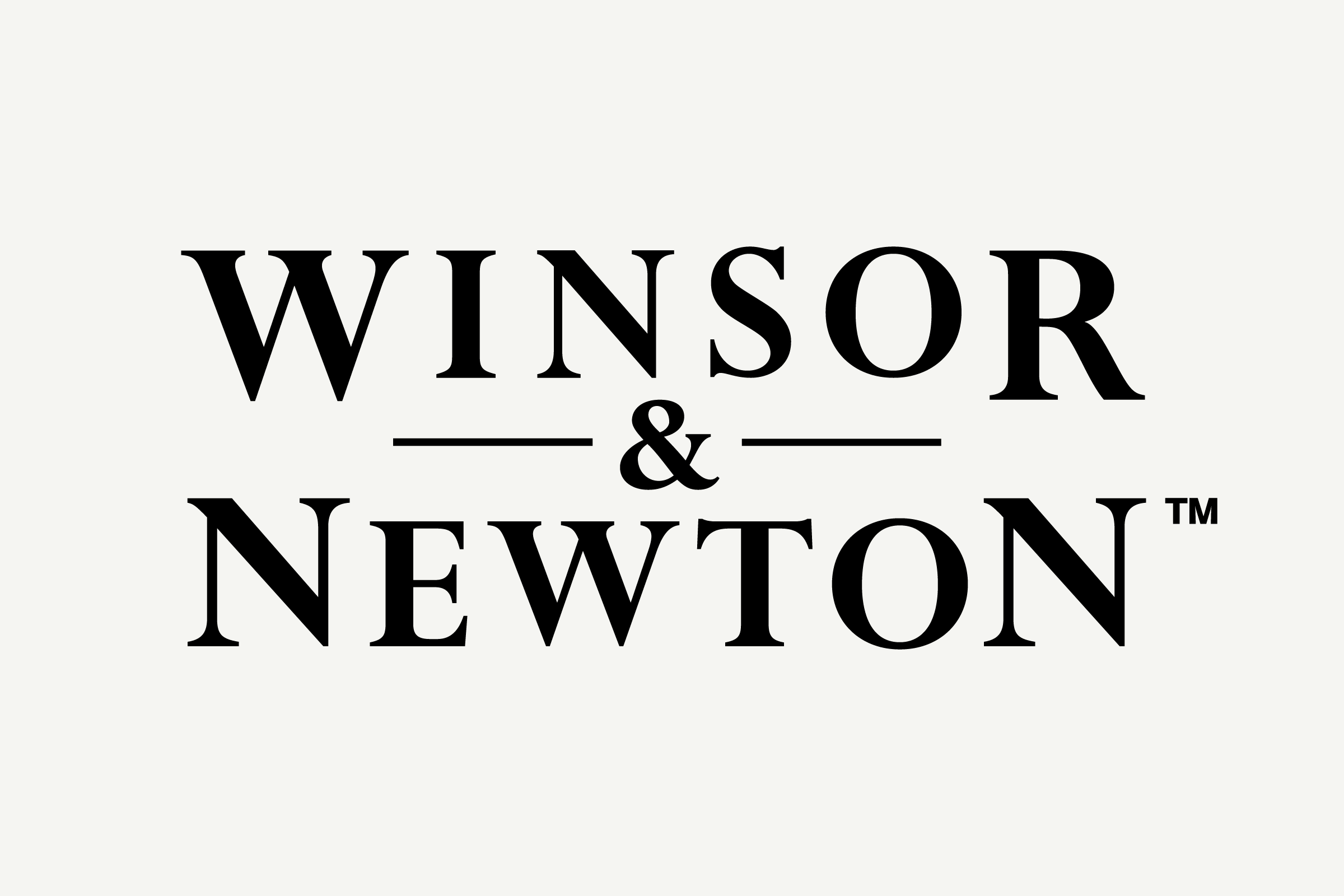
The mark, which is consistently reproduced across the company’s fine art tools and products — from paint tubes to solvents to brushes and everything in between — had degraded over time due to digital wear and tear (often caused by transferral across media) and also suffered from being consistently used as a white (or light) mark upon a black (or dark) ground, despite initially being drawn for use as a black (dark) mark on a white (light) ground.
In response, our redevelopment of the Winsor & Newton trademark was three-fold. The first undertaking was an overall optimisation of the historic dark-on-light logo, which involved adjusting line weights, simplifying shadowing and detailing, and re-shaping the type. The second phase involved a subtle redrawing and lightening of this new mark for reversed-out (light on dark) settings, in which a standard inversion often causes a boldening halo effect that must be corrected for.
After optically synchronising the two versions of the primary mark and its accompanying type, the third stage of the logo’s improvement and expansion demanded a commission-specific variant of the Winged Lion for use at extremely small sizes (imprinted on the side of a very small paintbrush, for example). Distillation of the mark included simplifying decorative elements overall, reducing the number of wing and mane feathers, regulating contrast in the type, and adding ink traps where necessary.
Forms also simplified to just essential shapes.
In the end, the optimisations should practically go unnoticed; like a well-composed score in a film, subtlety and support is tantamount. While still retaining recognition and preserving the brand equity that comes with 135 years of iconic use, the revamped marks function as a toolkit to ensure legibility, clarity, and precision across media.